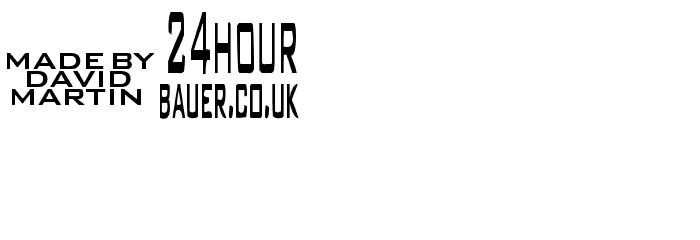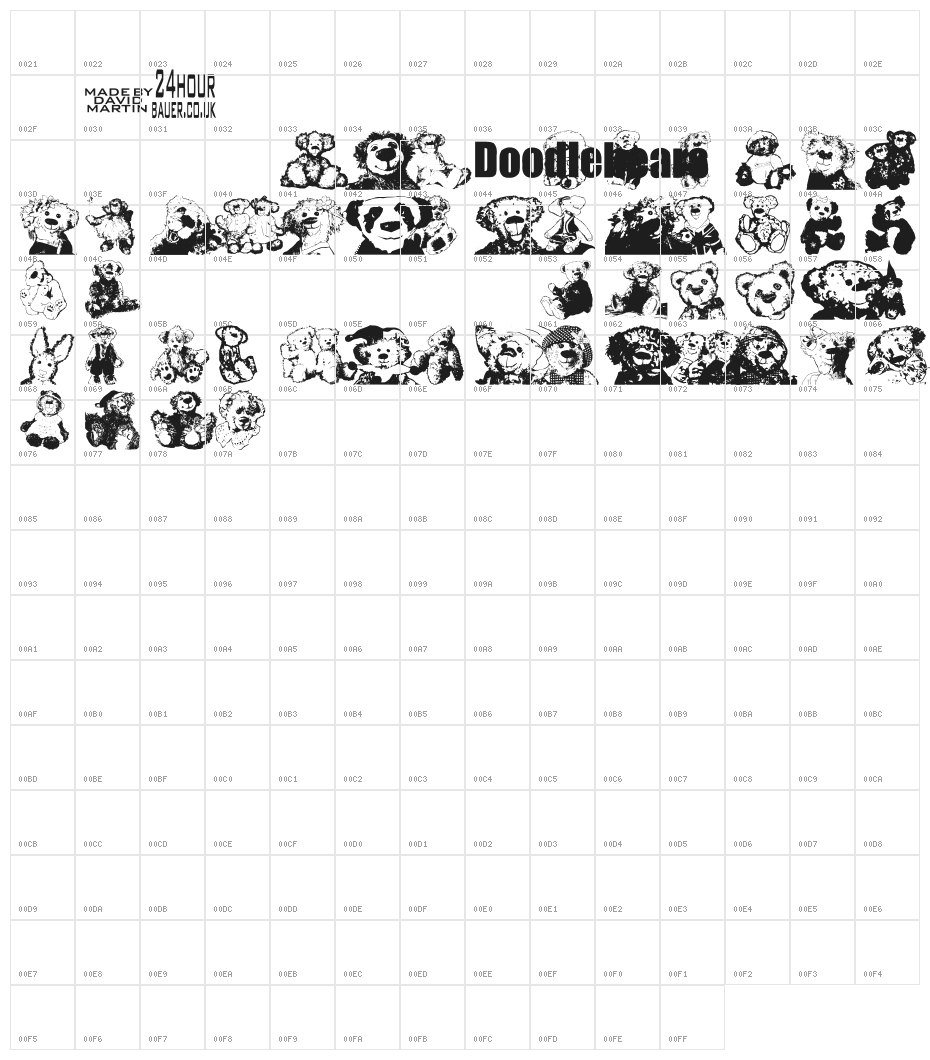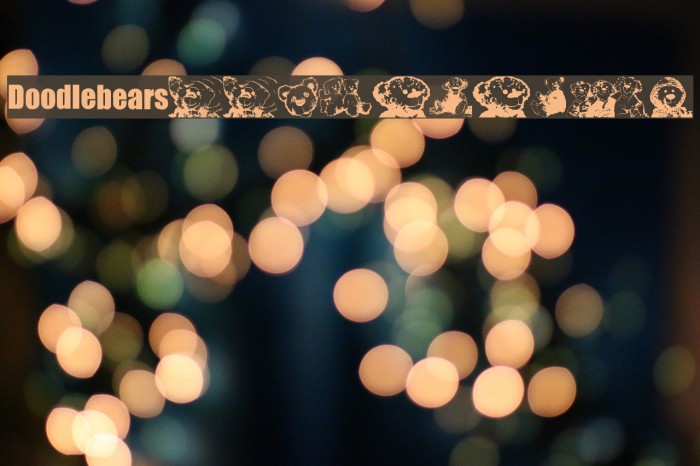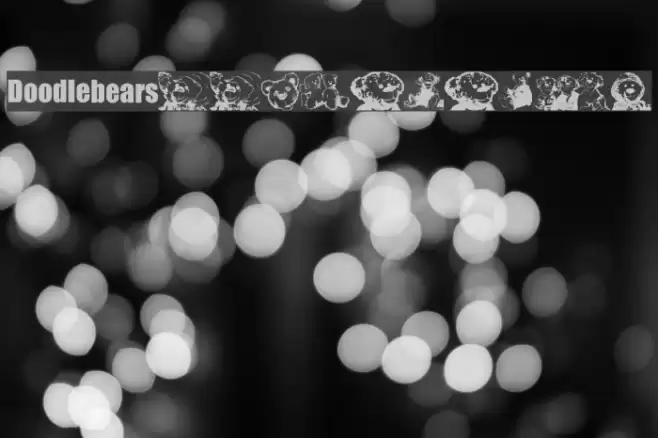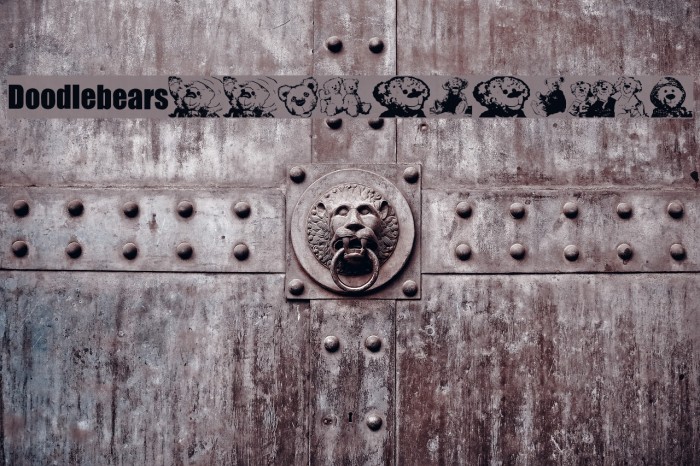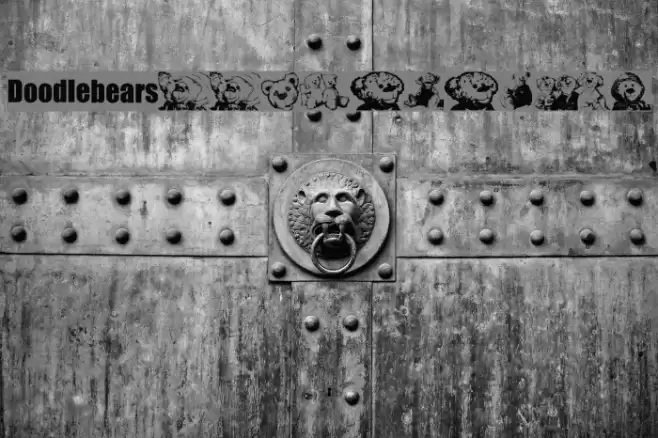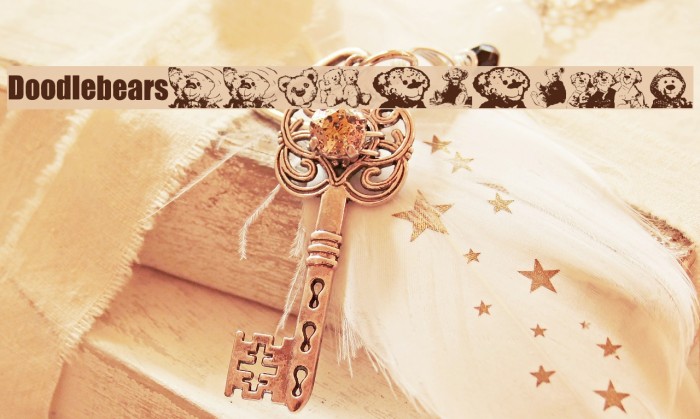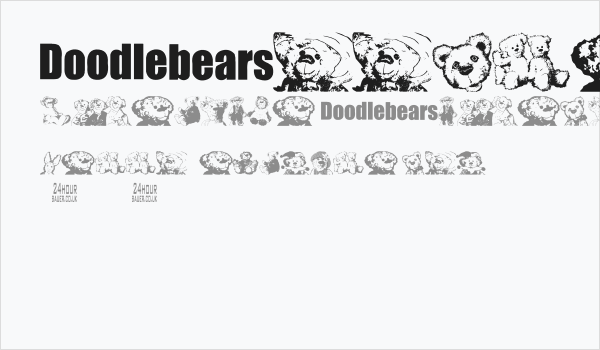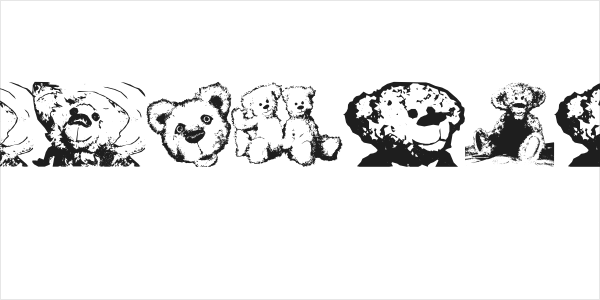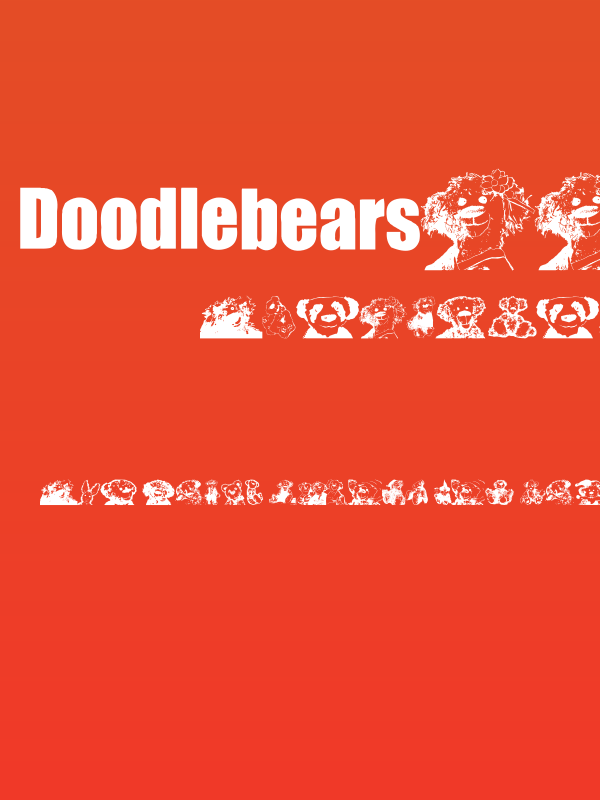
Doodlebears Font
Doodlebears Description
A playful, decorative display font featuring hand-drawn teddy bear illustrations integrated with bold, condensed sans-serif letterforms. The font combines whimsical bear doodles with clean, geometric text, creating a unique and friendly appearance.
| Overall Style | Playful, Decorative |
| Use Case | Headlines, Logos, Children's materials |
| Proposed Projects | Children's books, toy packaging, playful branding, event posters, greeting cards. |